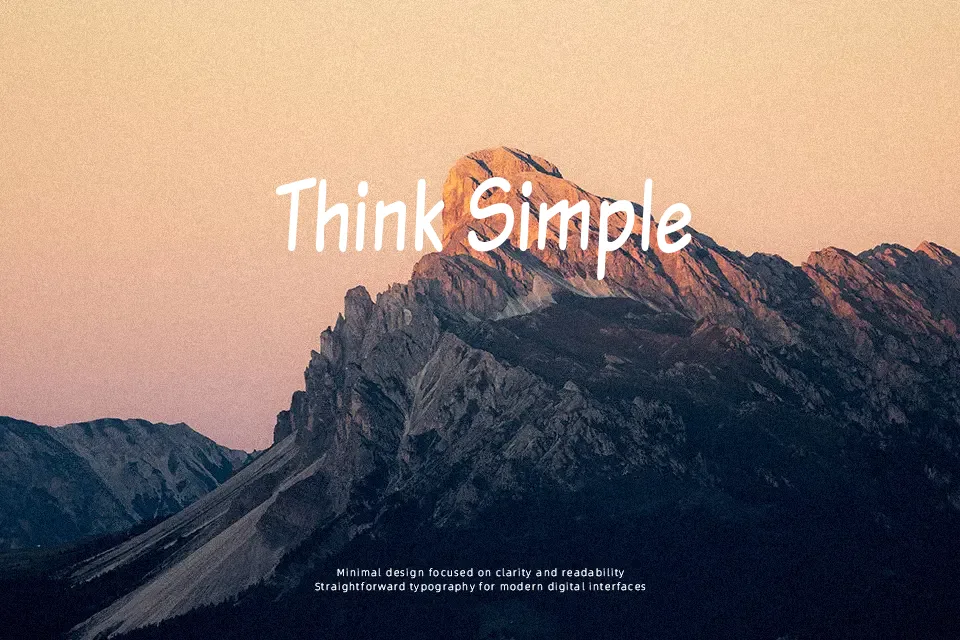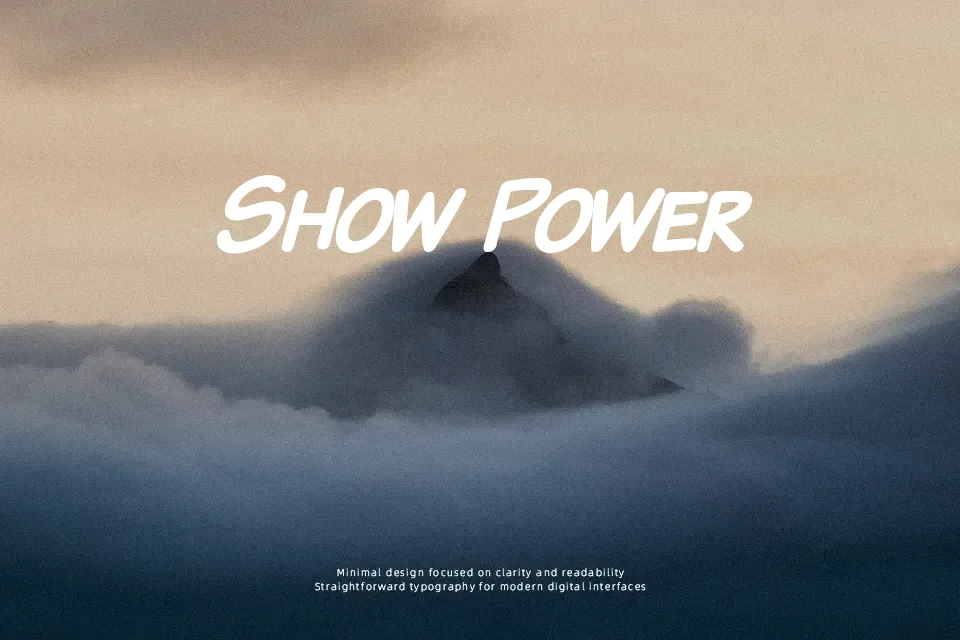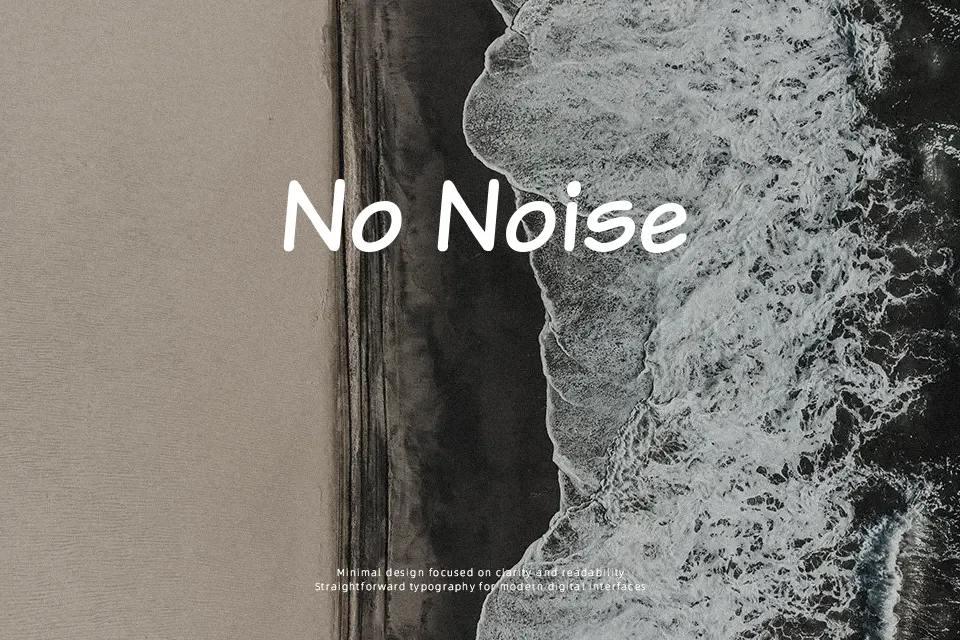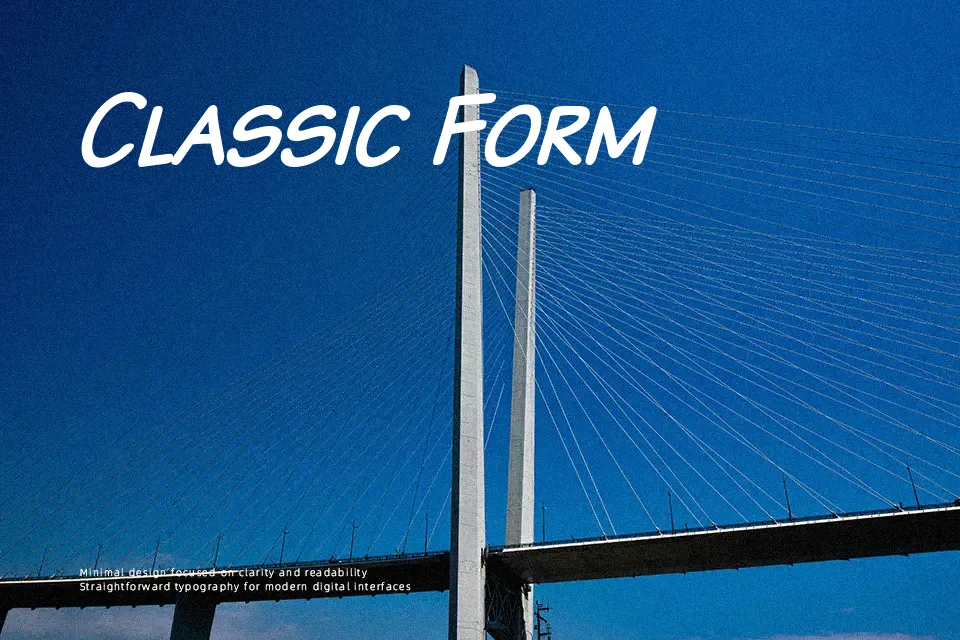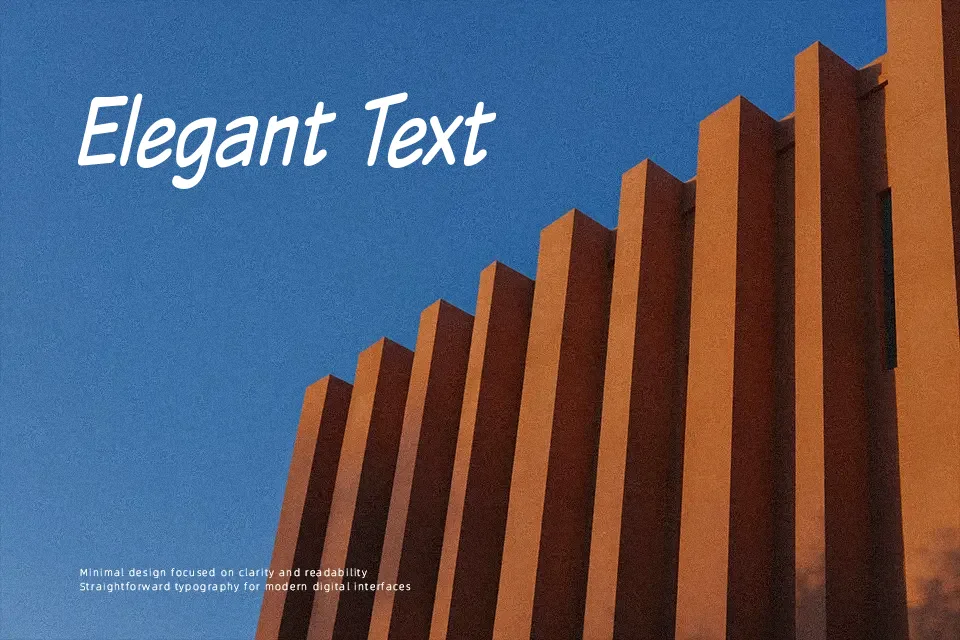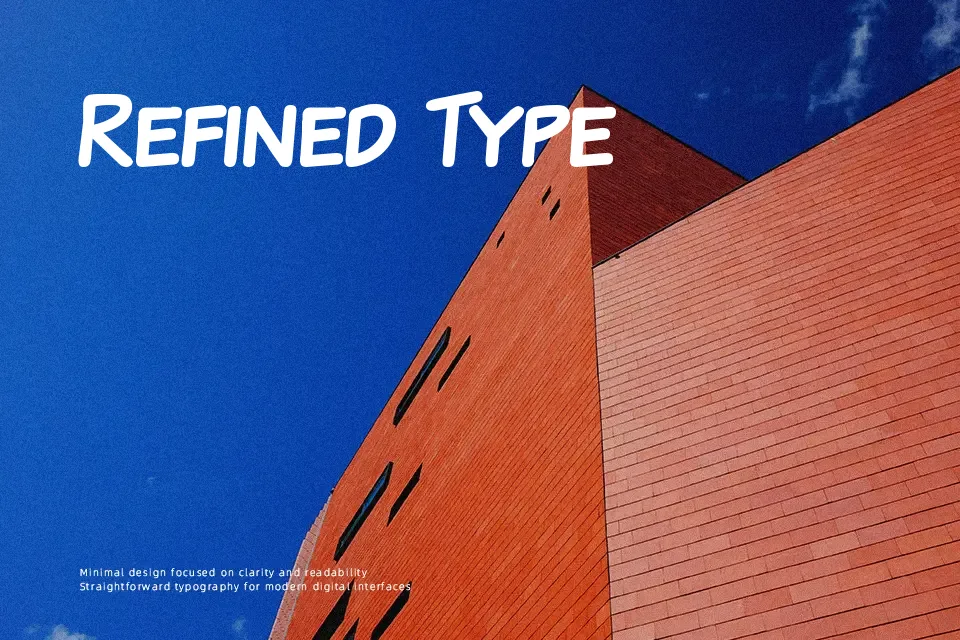
Komika Text Font
There’s a lively, hand-drawn feel in Komika Text, with uneven strokes, rounded edges, and slightly irregular spacing that mimic comic lettering. The characters lean toward a casual structure, giving text a spontaneous, expressive voice rather than a polished typographic system. It works well in comic panels, dialogue bubbles, and illustrated posters where personality matters more than precision. However, the loose spacing and exaggerated forms can reduce readability in long passages or small sizes. It performs best in short bursts of text, especially when paired with visual storytelling elements rather than formal layouts.
comic book dialogue and panels
cartoon-style posters
kids-focused educational graphics
illustrated social media posts
formal documents or reports
minimalist branding systems
small UI text elements
Perfect for headline, kids, and poster, with a creative and cartoon style.